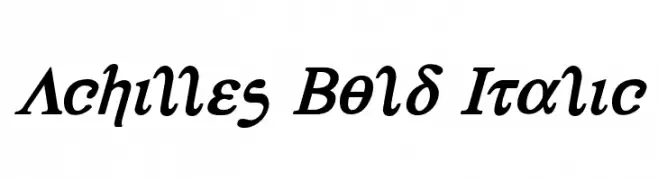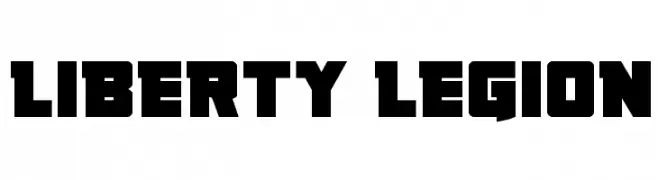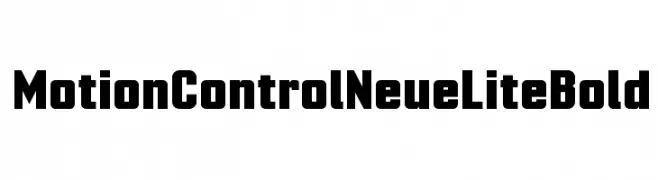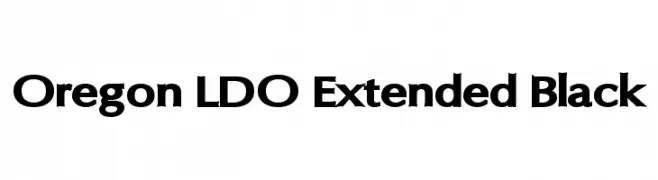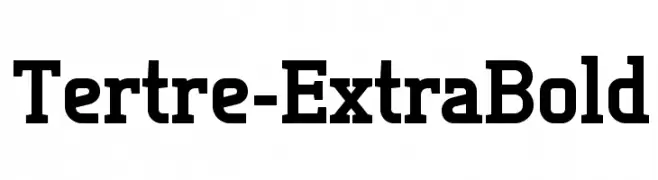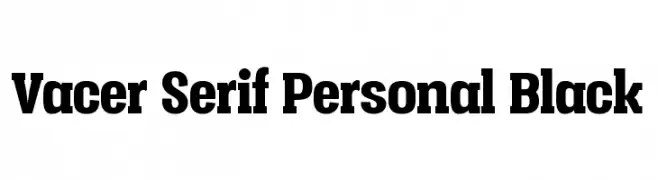
A bold, italicized font with a sporty, dynamic style.
A bold, geometric font with a futuristic and striking design.
A classic serif font with elegant, bold characters and unique lowercase loops.
A bold, outlined font with a playful, three-dimensional style.
A bold, hand-drawn style font with expressive, uneven strokes.
Bold, italicized font with a collegiate, athletic style.
A classic serif font with a condensed style and moderate contrast, ideal for formal use.
A bold, heavy font with strong geometric shapes and high contrast.
A bold blackletter font with shadow effects, offering a dramatic and ornate style.
A bold, condensed font with a vintage, decorative style.
A bold, dramatic font with a medieval flair and strong, thick strokes.
A bold, italicized font with a dynamic slant and extended width.
A decorative and ornate serif font with bold, intricate details.
A bold, angular font with a dynamic, futuristic style.
A bold, geometric font with angular, blocky characters.
A bold, geometric font with a vintage poster style and modern appeal.
A modern, wide-stanced font with clean lines and balanced proportions.
A bold, slab serif font with strong, uniform strokes for impactful design.
A bold, stencil-like font with thick, blocky strokes and sharp edges.
A decorative and gothic-inspired font with ornate swirls and curls.
A classic serif font with elegant and refined letterforms, offering a timeless look.
A bold, dynamic font with angular cuts and a playful, adventurous style.
A bold, wide font with a shadow effect for a three-dimensional look.
A wide, bold font with uniform strokes and modern appeal.
A classic serif font with elegant strokes and a traditional aesthetic.
A bold, decorative font with a strong, three-dimensional appearance.